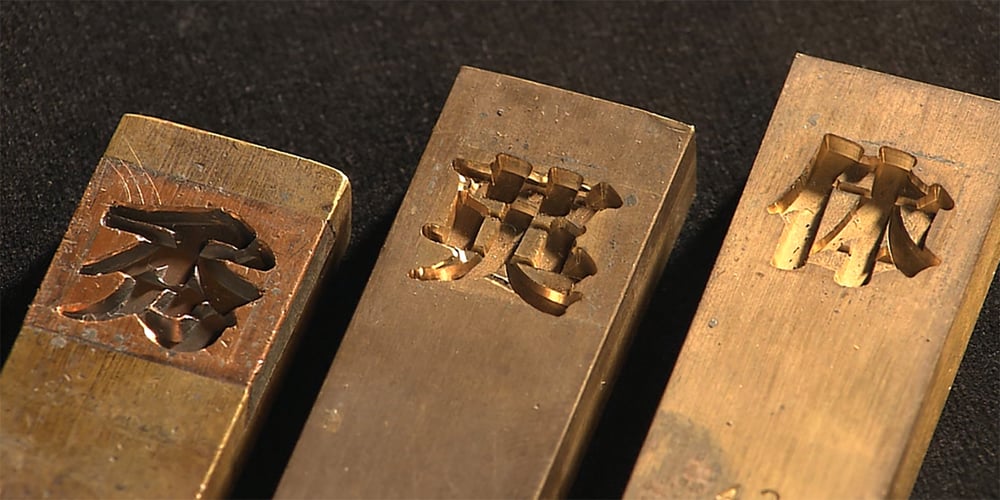
DNP Shueitai
DNP Shueitai font
DNP Shueitai Font Family was designed by published by DNP. DNP Shueitai contains 17 styles and family package options. Shueitai is a typeface that has been undergoing development for more than a century, starting from the days when Dai Nippon Printing Co., Ltd. (DNP) was still known as Shueisha. As Japan underwent rapid modernization during the early years of the Meiji era, Shueisha, believing that printing was a business befitting a modern civilized society, began operations with a focus on letterpress. Before long the company expanded into developing its own typefaces. In 1912 it completed a full range of Mincho type, in sizes from Sho-go (#0 size, 42pt) through Hachi-go (#8, 4pt), which it called “Shueitai” a new style that came to form one of the two mainstreams of Japanese typefaces and continues to have a significant influence on font design even today. The Shueitai typeface is distinguished by abundant variations matching the size of type and the changing demands of the times. Whether it is the spirited and powerful Sho-go, the delicate and flowing San-go (#3, 16pt), or the bright and solidly reassuring Shuei-Mincho L, all Shueitai typefaces share a vibrant brushwork that adds an expression of eloquence and a burst of brilliance to every printed word. Currently, Shueitai is composed of 17 kinds of fonts useful for various purposes. The world has witnessed vast changes in the environment surrounding the printed world, with the tran-sition first from letterpress to Desktop Publishing, and most recently to e-books. But no matter how this environment might evolve, the written word remains the basis of communication, and the importance of beautiful and readable typefaces stays unchanged. In preparation for the changes that will inevitably come during the future, DNP will continue to evolve the Shueitai designs from now on. Through its continual reinvention, Shueitai, a typeface consistently adopted at the vanguard of the industry, perhaps represents Japanese innovation at its very best.